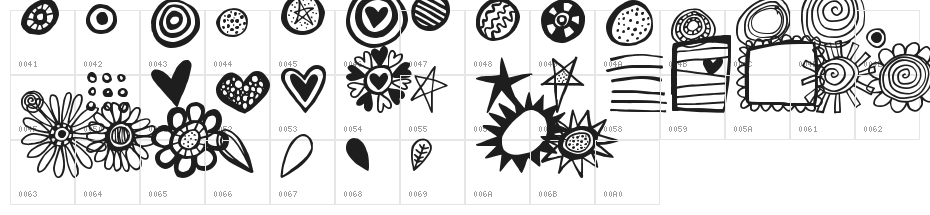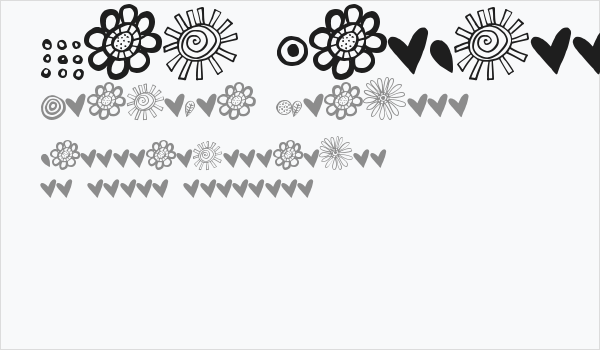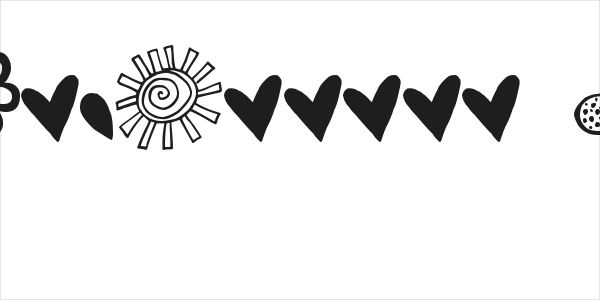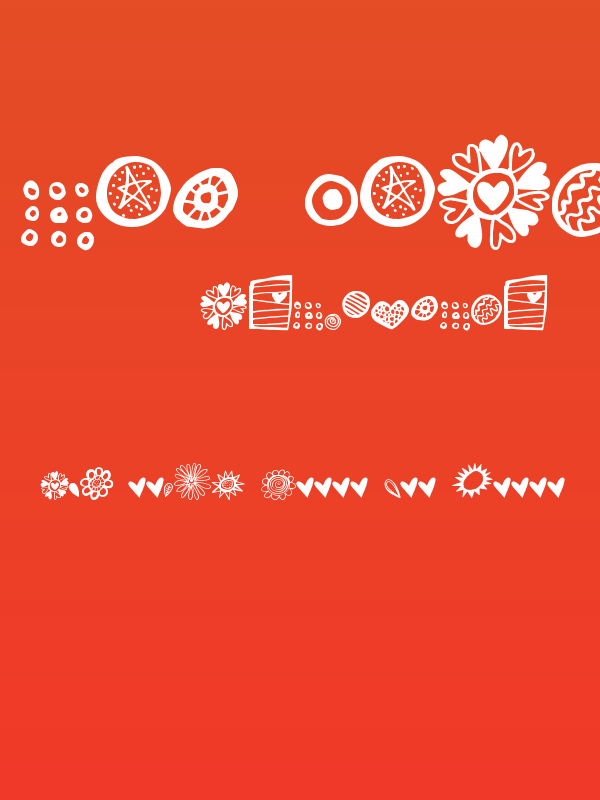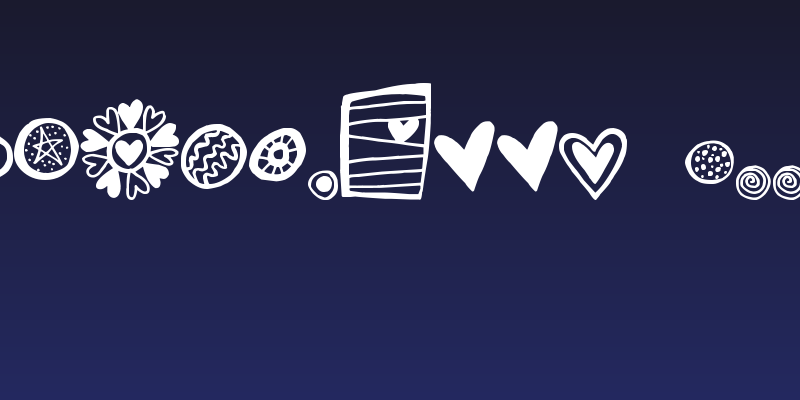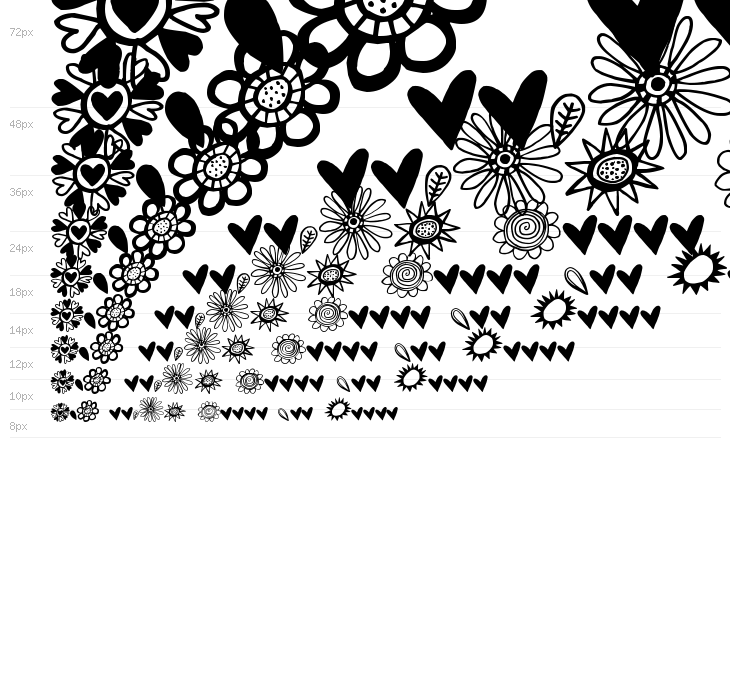
Pea Bethany's Doodles Font
Pea Bethany's Doodles Description
This collection features a playful and whimsical assortment of doodles, including hearts, stars, flowers, and various circular patterns. The designs are hand-drawn with a casual and artistic flair, making them ideal for adding a touch of creativity and fun to any project. The elements vary in size and complexity, from simple hearts to intricate floral designs, providing a versatile range of options for decorative purposes. The overall style is informal and charming, perfect for projects that require a personal and artistic touch.
| Overall Style | Whimsical, Artistic, Playful |
| Use Case | Decorative elements for creative projects. |
| Proposed Projects | Ideal for scrapbooking, greeting cards, invitations, and any creative project that benefits from a personal and artistic touch. |